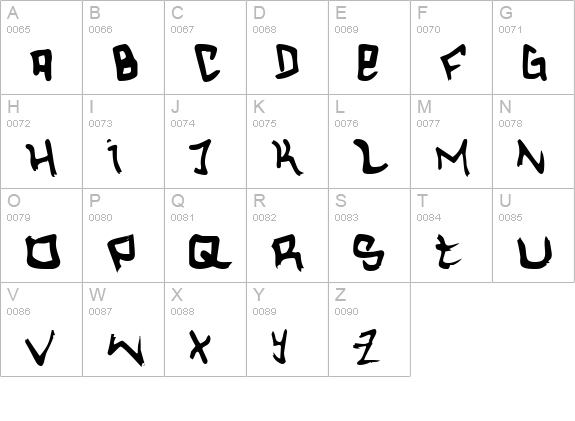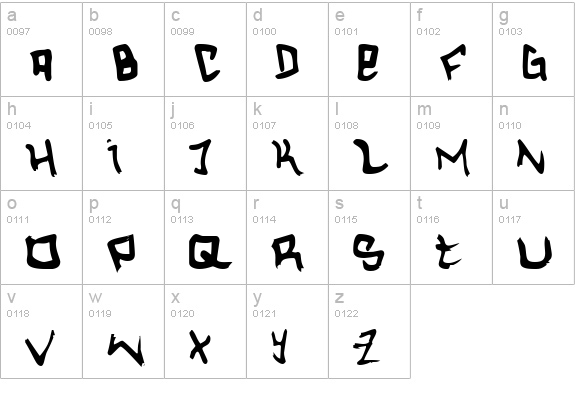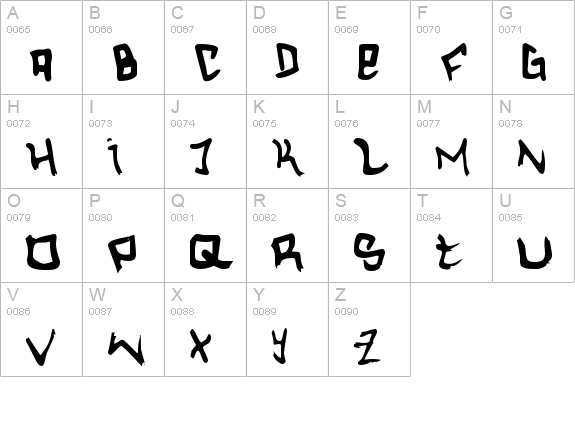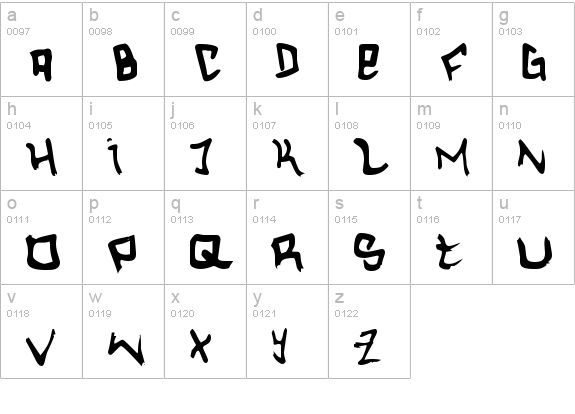
Hardcore Font Details
Introducing Hardcore Font, a bold and edgy typeface that exudes a sense of raw power, perfect for your hardcore design projects. With its sharp angles and robust letterforms, this font commands attention and makes a powerful statement. Hardcore Font is not only visually striking but also highly versatile, lending itself to a wide range of design applications. From album covers and posters to apparel designs and branding, this font is ready to add a tough and gritty touch to your creative endeavors. And here's the best part – Hardcore Font is available for FREE download at FontsMarket.com. Yes, you read that right! This incredible font can be yours without spending a dime. FontsMarket.com is your go-to source for high-quality fonts, and they are generously offering Hardcore Font at no cost to you. Whether you're a professional designer looking to expand your font library or a hobbyist seeking a unique and powerful typeface, Hardcore Font has got you covered. Its sleek and commanding presence will make your designs stand out from the crowd and leave a lasting impression. So don't miss out on this fantastic opportunity. Head over to FontsMarket.com and grab your free download of Hardcore Font today. Unleash the power of this extraordinary typeface and take your designs to the next level.